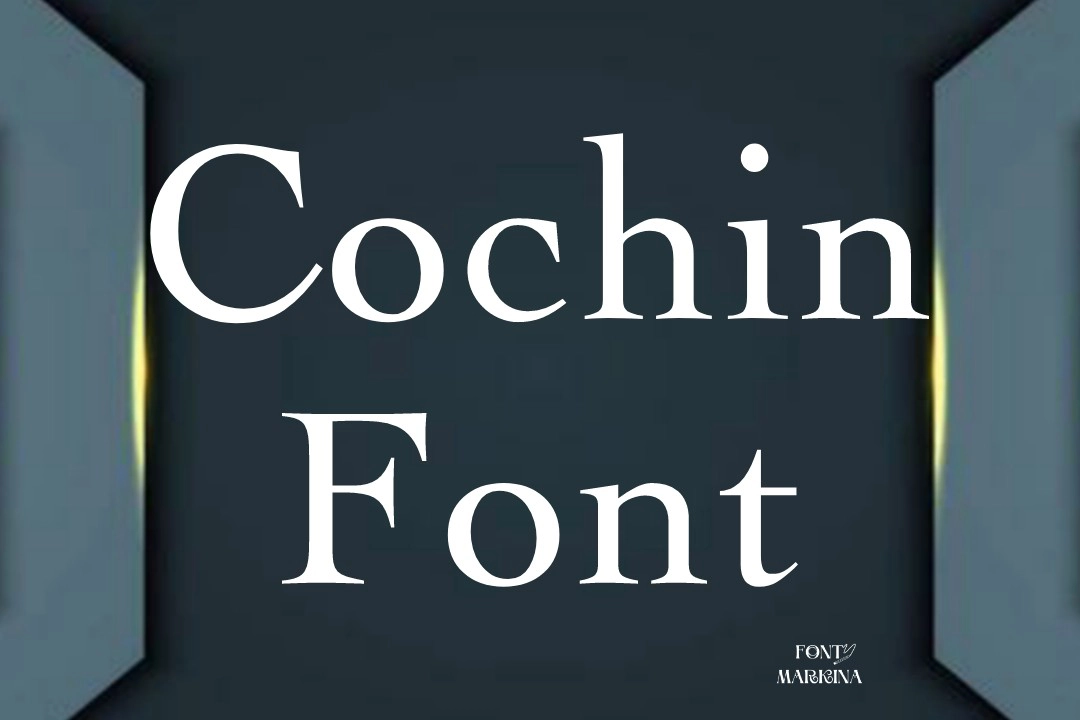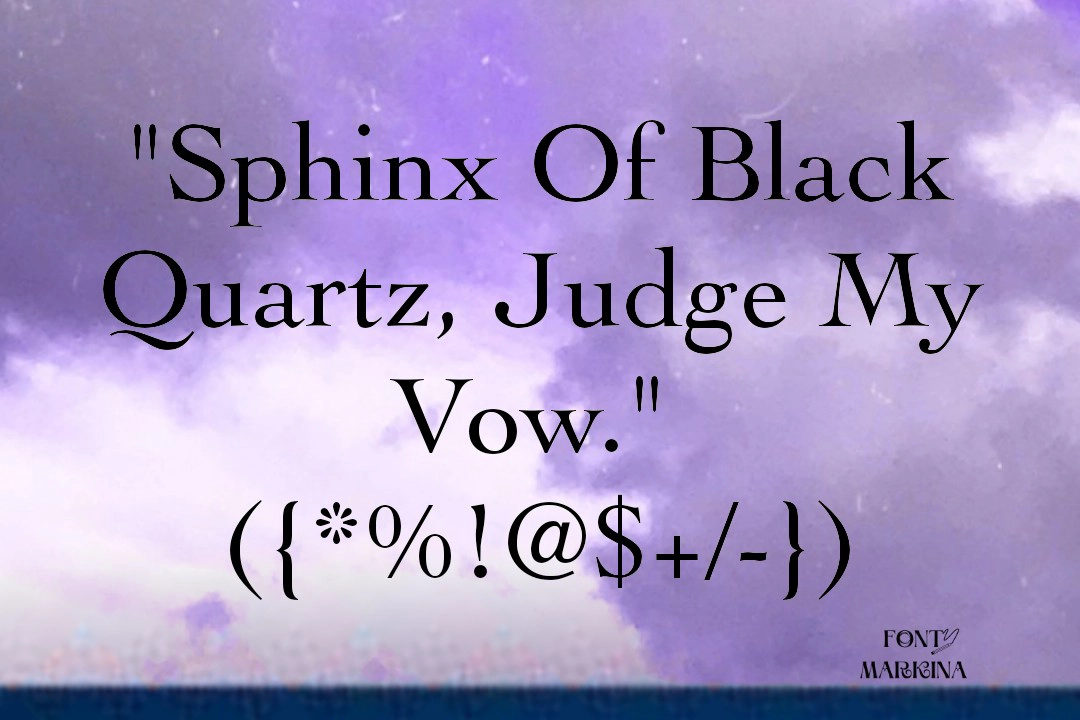
About Cochin Font
We present, a trendy font that lies in the serif classification known by the name Cochin Font. The original creator of this texture is Georges Peignot who designed it in 1912. Finally, this typography was released through Linotype Foundry in the year 1914. Matthew Carter reworked this texture in 1977.
One of the standard features of this texture is that it includes different types of eight marvelous styles and 4 classic weights also.
Bold, italic, and regular are its main styles. It is obtainable in small X height. The generator is very effective in the case of graphic design.
It’s similar to the Orpheus Pro font has more powerful features and same as this Font. You can for this family on google as well as Adobe. Its different characters are obtainable in slopes.
Usage
This typography is used in different design fields like web design, poster design, and many others. In different advanced cities, this family is used for transportation systems.
While in magazine art, the use of this texture is familiar. This texture is also used for 3D designs.
Even now in business sectors, this typeface is mostly used for making and keeping all important records and reports, and not enough it is used for students’ presentations and study notes. You can make a pair of this family with New York font and enjoy more fantastic uses.
| Designer | Georges Peignot |
| Date | 1912 |
| Type | Serif |
What is Cochin font used for?
The publications of the Editorial Nascimento of Santiago Chile employ this exceptional serif texture.
What font is closest to Cochin?
Arkibal font is one of the closest to this amazing texture with the same styles and weights.
Is Cochin an Adobe font?
This remarkable typeface is an Adobe font and you can use it for a vast variety of your Adobe projects.